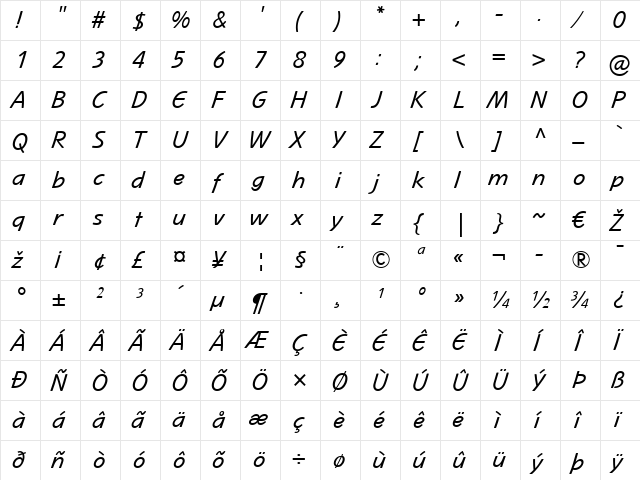
Mano LT Regular Regular
| Designer | Marco Ganz |
Design Context for Mano LT Regular Typeface
Mano LT Regular takes a measured approach to typography — its balanced proportions and neutral character make it a reliable workhorse for both digital and print work. The delicate stroke weight brings airiness and refinement to layouts.